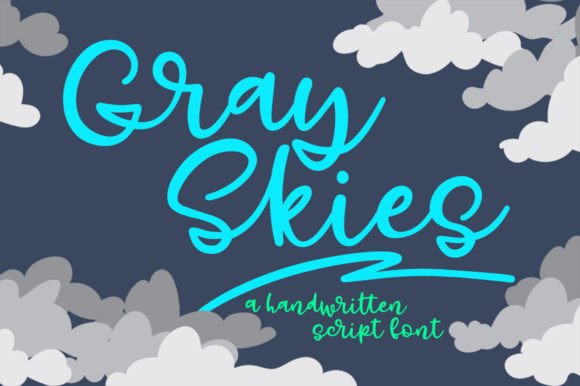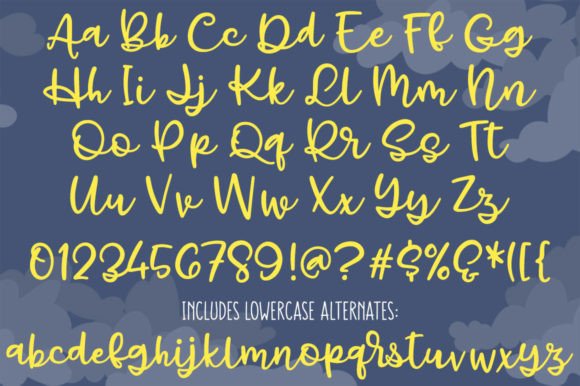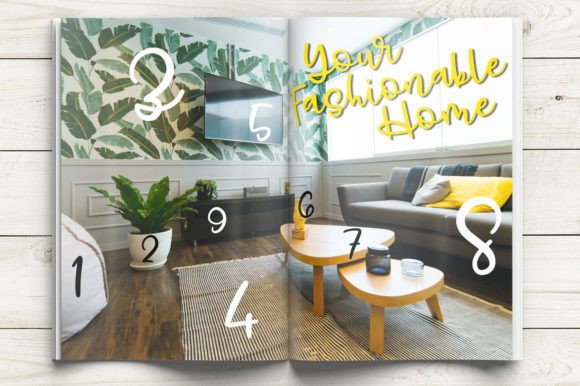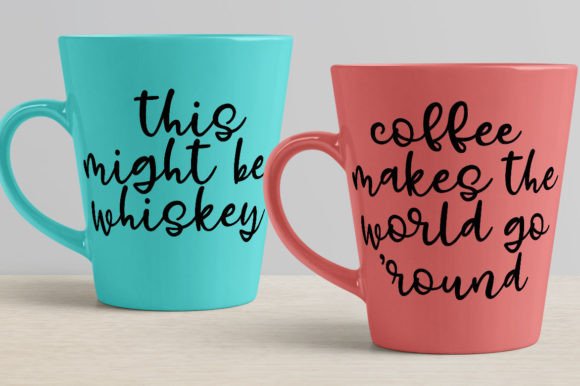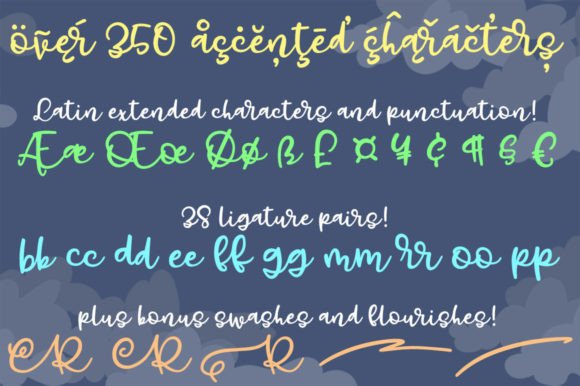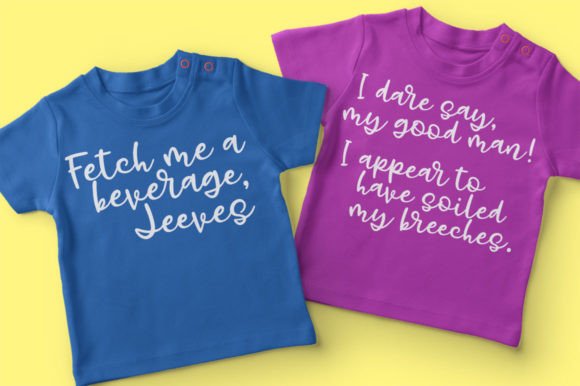
Gray Skies Font
Gray Skies introduces a new dimension to the world of script fonts, sparked by the unconventional loop of the letter Y. This distinctive design element, resembling a zig-zag smiling-mouth shape, served as the creative inspiration for a font that exudes character and charm.
With a rich array of features, Gray Skies stands out as a versatile script font tailored to diverse typographic needs. The font encompasses:
– **Uppercase A-Z, lowercase a-z, numbers 0-9, and a full set of punctuation:** Providing a comprehensive set of characters for use in a variety of design contexts.
– **Over 350 accented and extended characters:** Gray Skies facilitates multilingual support, including special characters like Æ, æ, Œ, œ, and ß.
– **Alternates for lowercase a-z:** Stylistic Alternates offer creative variations for lowercase characters, enhancing visual appeal and flexibility.
– **38 double- and triple-letter ligature sets:** Ligatures contribute fluidity and uniqueness to letter combinations, elevating the overall aesthetic of the font.
– **10 bonus flourishes and swashes:** The Alternates file includes additional decorative elements, allowing for enhanced visual flair in design compositions.
Gray Skies transcends traditional script fonts, offering a playful and distinctive style to elevate your typography. Whether applied to creative projects, branding, or other design ventures, Gray Skies presents a fresh and unconventional script font with a unique personality and innovative design elements.